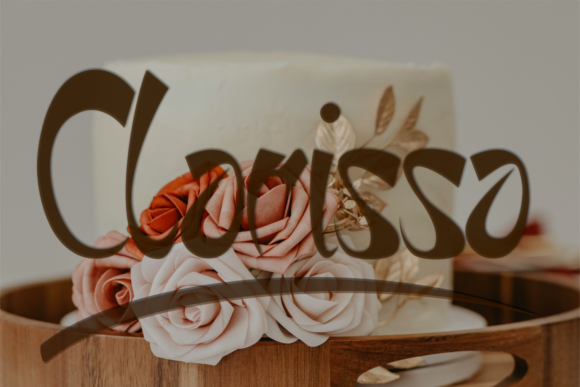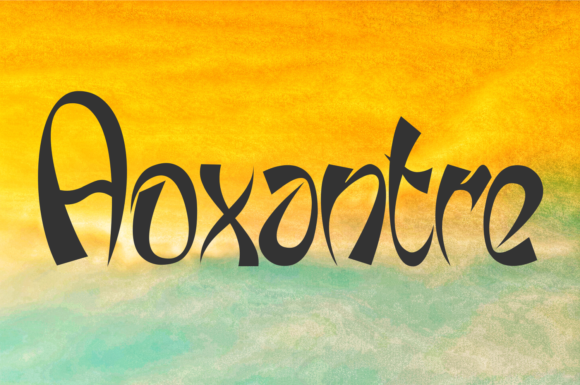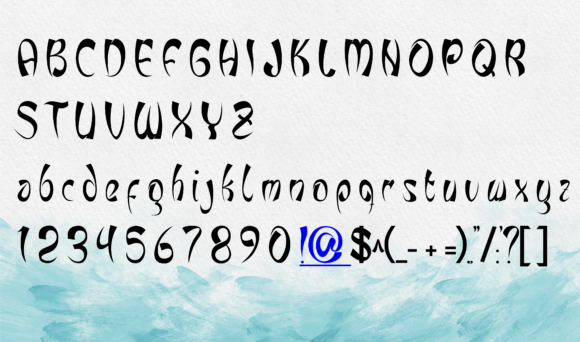
Introducing Deep Blue Font: The Quirky and Charming Display Font You Need
Are you tired of using the same old fonts in your designs? Do you want to add a touch of personality and whimsy to your creative projects? Look no further than Deep Blue Font, a quirky and charming display font that’s sure to make your designs stand out.
What is Deep Blue Font?
Deep Blue Font is a unique and eye-catching display font that’s perfect for designers and crafters who want to add a bit of fun and personality to their work. With its playful and charming vibe, this font is sure to capture the attention of your audience and leave a lasting impression.
Key Features of Deep Blue Font
- Quirky and charming design: Deep Blue Font has a one-of-a-kind design that’s sure to add a touch of whimsy to your designs.
- Display font: This font is specifically designed for display purposes, making it perfect for headlines, titles, and other attention-grabbing elements.
- Easy to read: Despite its playful design, Deep Blue Font is easy to read and understand, making it perfect for a wide range of applications.
- Versatile: This font can be used in a variety of contexts, from digital designs to print materials.
How to Use Deep Blue Font in Your Designs
Deep Blue Font is incredibly versatile and can be used in a wide range of design applications. Here are a few ideas to get you started:
- Social media graphics: Add a touch of personality to your social media graphics with Deep Blue Font.
- Logos and branding: Use Deep Blue Font to create a unique and memorable logo or brand identity.
- Invitations and announcements: Add a playful touch to your invitations and announcements with Deep Blue Font.
- Digital and print materials: Use Deep Blue Font in your digital and print materials, such as brochures, flyers, and posters.
Why Choose Deep Blue Font?
So why should you choose Deep Blue Font for your design projects? Here are just a few reasons:
- Unique design: Deep Blue Font has a one-of-a-kind design that’s sure to make your designs stand out.
- High-quality: Deep Blue Font is a high-quality font that’s designed to deliver exceptional results.
Tips for Getting the Most Out of Deep Blue Font
Here are a few tips for getting the most out of Deep Blue Font:
- Experiment with different colors: Deep Blue Font looks great in a variety of colors, so don’t be afraid to experiment and find the perfect hue for your design.
- Use it sparingly: Deep Blue Font is a display font, so it’s best to use it sparingly to create a bold and eye-catching effect.
- Pair it with other fonts: Deep Blue Font pairs well with a variety of other fonts, so don’t be afraid to experiment and find the perfect combination for your design.
| Author | AnomiEka |
Deep Blue Font is a quirky and charming display font that’s sure to add a touch of personality and whimsy to your designs. With its unique design, ease of use, and versatility, this font is perfect for designers and crafters who want to create eye-catching and memorable designs. So why wait? Download Deep Blue Font today and start adding a joyful touch to your creative projects!